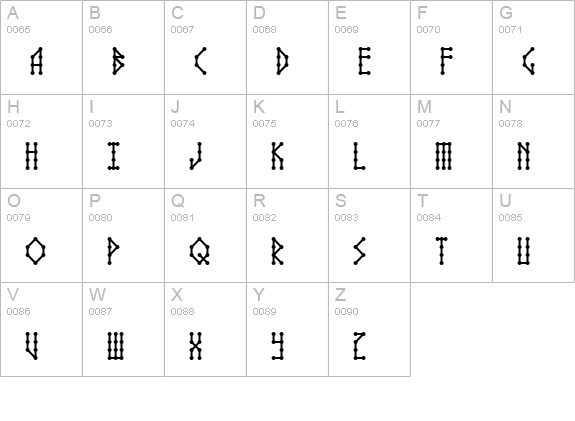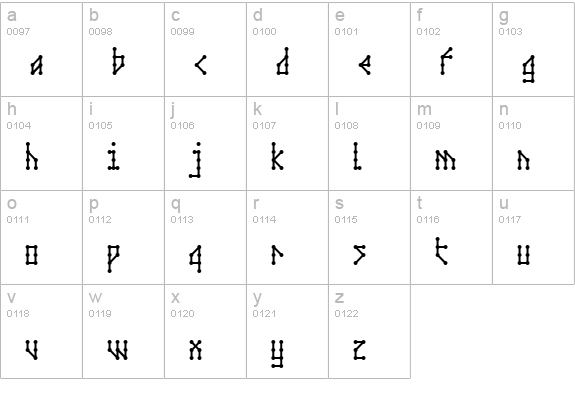
Microbe AOE Font Details
Introducing Microbe AOE font, a striking and modern typeface that will bring a unique touch to your design projects. Microbe AOE features a sleek and futuristic style, making it perfect for logos, headlines, branding, and more. With its clean lines and sharp edges, this font exudes a sense of sophistication and professionalism. One of the best things about Microbe AOE font is that it is completely free to download at FontsMarket.com. This means that you can easily add this eye-catching font to your collection without any cost. Whether you're a designer looking to expand your font library or a business owner in need of a fresh look for your branding, Microbe AOE font is the perfect choice. Don't miss out on the opportunity to enhance your designs with this stylish and versatile font. Download Microbe AOE today and take your projects to the next level.